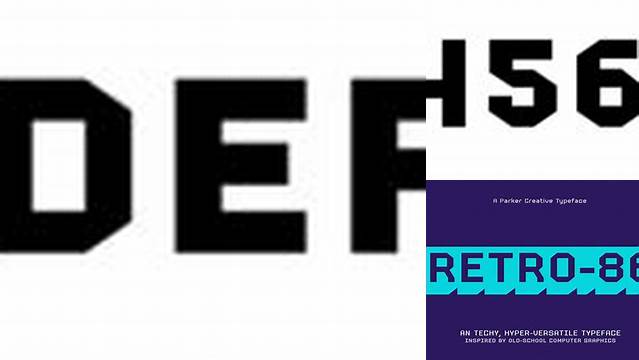
Retro 86 Bold Font: Free Download For Your Designs
Hey guys! Are you on the hunt for a font that screams retro and bold? Look no further! The Retro 86 Bold font is here to inject a serious dose of 80s nostalgia into your designs. Whether you're crafting eye-catching posters, designing a killer logo, or just want your text to pop with vintage vibes, this font is your new best friend. In this article, we'll dive into everything you need to know about the Retro 86 Bold font, including where to snag it for free and how to use it to its full potential. So, buckle up and let's get this retro party started!
What Makes Retro 86 Bold Font So Special?
Let's talk about what makes the Retro 86 Bold font a total standout. In a world drowning in generic typefaces, this font brings a unique, attention-grabbing aesthetic that's hard to ignore. Imagine those classic 80s arcade games, the neon-lit streets of Miami Vice, and the bold, graphic designs that defined the era – that's the vibe Retro 86 Bold is channeling. It's not just a font; it's a time machine, transporting your audience back to a decade of big hair, synth-pop, and unapologetically bold design choices. The boldness itself is a key feature, ensuring that your text commands attention and makes a statement. This makes it perfect for headlines, titles, and any design element where you need to make a strong impact. The font's distinct character shapes and stylistic flourishes add to its personality, making it instantly recognizable and memorable. It’s a font that doesn’t whisper; it shouts, “Hey, look at me!” And in the crowded landscape of design, that’s exactly what you want. The Retro 86 Bold font isn't just about aesthetics, though. It's also about functionality. A well-designed font needs to be legible and versatile, and this one ticks all the boxes. While it's undeniably bold and stylish, it also maintains a level of clarity that ensures your message is easily readable. This is crucial, especially when using the font in larger blocks of text or in designs where readability is paramount. Whether you're working on a website, a poster, or a social media graphic, you can trust Retro 86 Bold to deliver a visual punch without sacrificing clarity. The font's versatility also extends to the types of projects it suits. It’s a fantastic choice for anything retro-themed, of course, but it can also work surprisingly well in modern contexts. Its bold character makes it suitable for branding, advertising, and even user interface design. Think about using it for app headers, website navigation, or even in-game text for a retro-style video game. The possibilities are endless. The appeal of Retro 86 Bold also lies in its ability to evoke a sense of nostalgia. For many people, the 80s were a formative decade filled with iconic imagery and cultural touchstones. By using this font, you're tapping into those memories and emotions, creating a connection with your audience that goes beyond mere visual appeal. This can be particularly powerful in marketing and advertising, where emotional connections can drive engagement and brand loyalty. So, if you're looking for a font that's more than just letters on a page, Retro 86 Bold is definitely worth considering. It's a font with a story to tell, and it's ready to help you tell yours.
How to Use Retro 86 Bold Font in Your Designs
Alright, you've got the Retro 86 Bold font downloaded and ready to go – now what? Let's talk about how to make the most of this awesome typeface in your designs. The key to using any font effectively is understanding its personality and choosing the right context for it. With its bold, retro vibe, Retro 86 Bold is perfect for projects that need a touch of 80s flair, but it can also be surprisingly versatile when used thoughtfully. First things first, consider the overall tone and message of your design. Retro 86 Bold is a statement font, so it's best suited for projects where you want to make a strong impact. Think posters, flyers, logos, and headlines – anywhere you need to grab attention and evoke a sense of nostalgia. It might not be the best choice for body text or more formal applications, where readability and subtlety are key. However, don't be afraid to experiment and see how it works in different contexts. One of the best ways to use Retro 86 Bold is in projects that directly reference the 1980s. Think about designing a poster for a retro-themed party, creating a logo for a vintage clothing store, or crafting social media graphics for an 80s-inspired event. In these cases, the font's inherent retro vibe will enhance the overall design and help you create an authentic look and feel. Consider pairing it with other design elements that evoke the era, such as neon colors, geometric patterns, and pixelated graphics. But Retro 86 Bold isn't just for retro-themed projects. It can also be used effectively in modern designs that need a touch of boldness and personality. For example, you could use it in a logo for a tech startup to convey a sense of innovation and energy, or in a website header to grab visitors' attention. The key is to use it sparingly and strategically, so it doesn't overpower the rest of the design. When using Retro 86 Bold, think about typography best practices. Pay attention to letter spacing, line height, and kerning to ensure that your text is legible and visually appealing. The font's bold character means that it can sometimes appear crowded, so you may need to adjust the spacing to give it some breathing room. Experiment with different sizes and weights to see what works best for your project. Another important consideration is font pairing. While Retro 86 Bold is a standout typeface, it's rarely a good idea to use just one font in a design. Pairing it with a complementary font can help balance its boldness and create a more cohesive look. A clean, sans-serif font like Helvetica or Arial can provide a nice contrast to Retro 86 Bold's retro style, while a more decorative font can enhance its personality. Experiment with different combinations to find what works best for your project. Finally, don't be afraid to get creative with Retro 86 Bold. Try using it in unexpected ways, such as in a pattern or as a graphic element. You could also experiment with different colors and effects to create unique visual styles. The key is to have fun and let your creativity guide you. With its bold personality and retro vibe, Retro 86 Bold is a font that's sure to make a statement in your designs. By understanding its strengths and using it thoughtfully, you can create eye-catching visuals that capture the essence of the 80s and beyond. So go ahead, give it a try, and see what amazing things you can create!
So there you have it, folks! The Retro 86 Bold font is your ticket to injecting some serious 80s swagger into your designs. From its bold character to its undeniable retro charm, this font is a powerhouse for creating eye-catching visuals. Whether you're working on a poster, a logo, or just want to add a vintage touch to your text, Retro 86 Bold is a fantastic choice. Remember, finding free fonts can be a bit of an adventure, but sticking to trusted sources like Google Fonts, Font Squirrel, and DaFont will keep you safe from any digital nasties. And once you've got the font downloaded, the real fun begins! Experiment with different ways to use it in your designs, pair it with complementary fonts, and don't be afraid to get creative. The key is to understand the font's personality and let it shine. The Retro 86 Bold font isn't just about aesthetics; it's about evoking a feeling, a memory, a connection to a decade that was all about bold choices and unapologetic style. By using this font, you're not just adding text to a page; you're telling a story, creating a mood, and capturing the essence of an era. So go ahead, download Retro 86 Bold, and let your designs transport your audience back to the future! Whether you're a seasoned designer or just starting out, this font is a valuable addition to your toolkit. It's versatile, it's stylish, and it's free – what's not to love? Embrace the boldness, embrace the retro, and let your creativity run wild. And who knows, maybe you'll even inspire a new generation to fall in love with the iconic style of the 1980s. Happy designing, everyone! I hope this article has been helpful in guiding you on your quest for the perfect retro font. Remember, design is all about experimentation and having fun, so don't be afraid to try new things and push your boundaries. The world of typography is vast and exciting, and there's always something new to discover. So keep exploring, keep creating, and keep making those bold design choices that set your work apart. And if you create something amazing with Retro 86 Bold, be sure to share it with the world! We'd love to see what you come up with. Until next time, happy font hunting and happy designing!